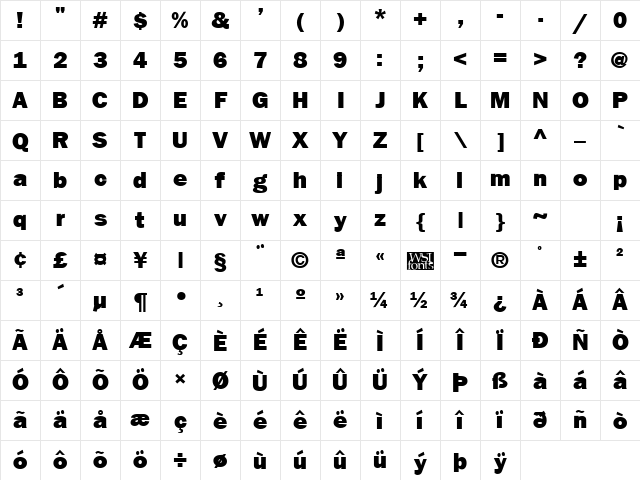
FrankfurtHeavy Regular
FrankfurtHeavy Regular Family
FrankfurtHeavy Regular
FrankfurtHeavy Regular Font Preview
FrankfurtHeavy Regular Uppercase Preview
FrankfurtHeavy Regular Lowercase Preview
FrankfurtHeavy Regular Numeric Preview
FrankfurtHeavy Regular Character Map
Complete FrankfurtHeavy Regular glyph index. Displaying only characters natively supported by FrankfurtHeavy Regular font.
FrankfurtHeavy Regular Character Map
Design Context for FrankfurtHeavy
FrankfurtHeavy is a composed and adaptable typeface that performs quietly and consistently across a wide range of design contexts.